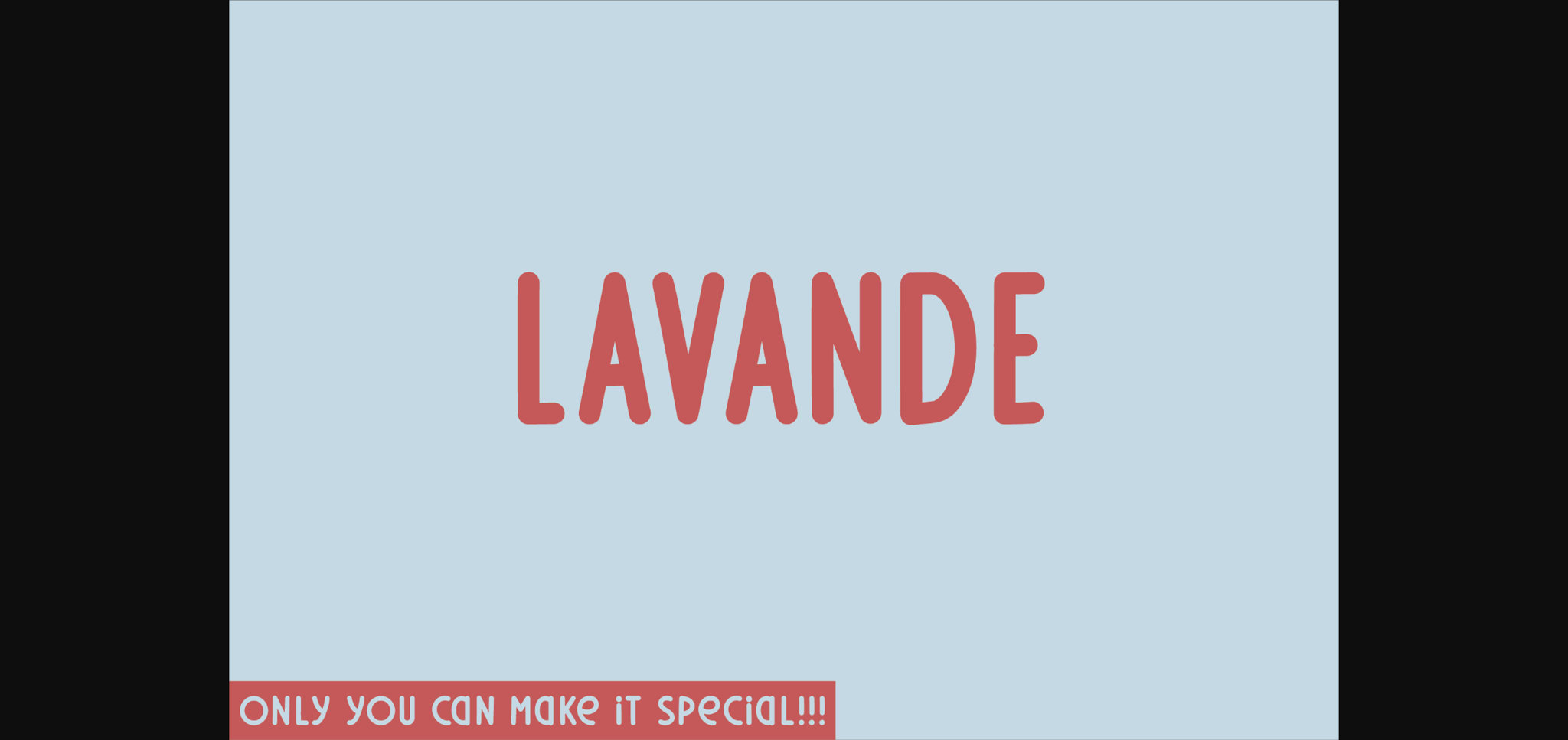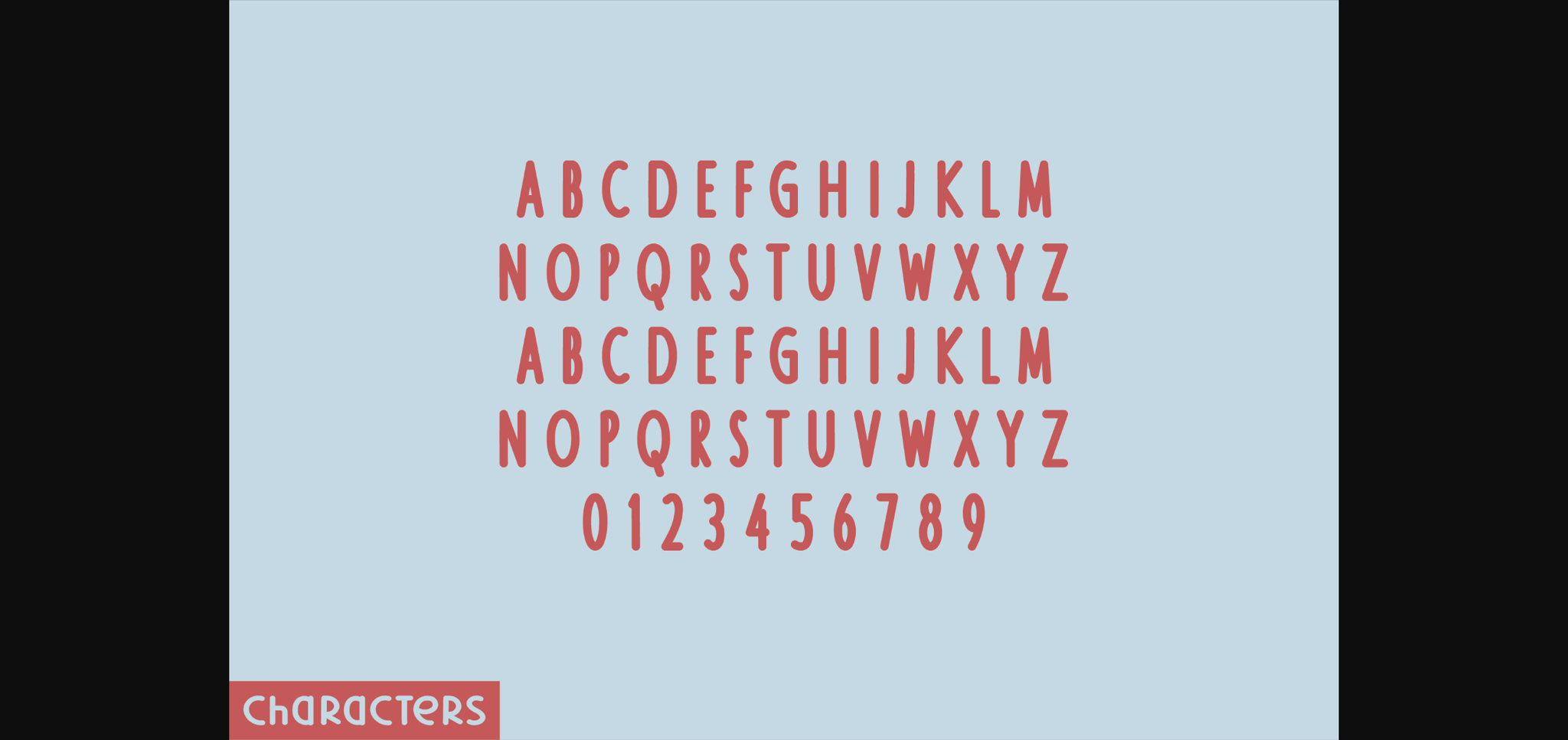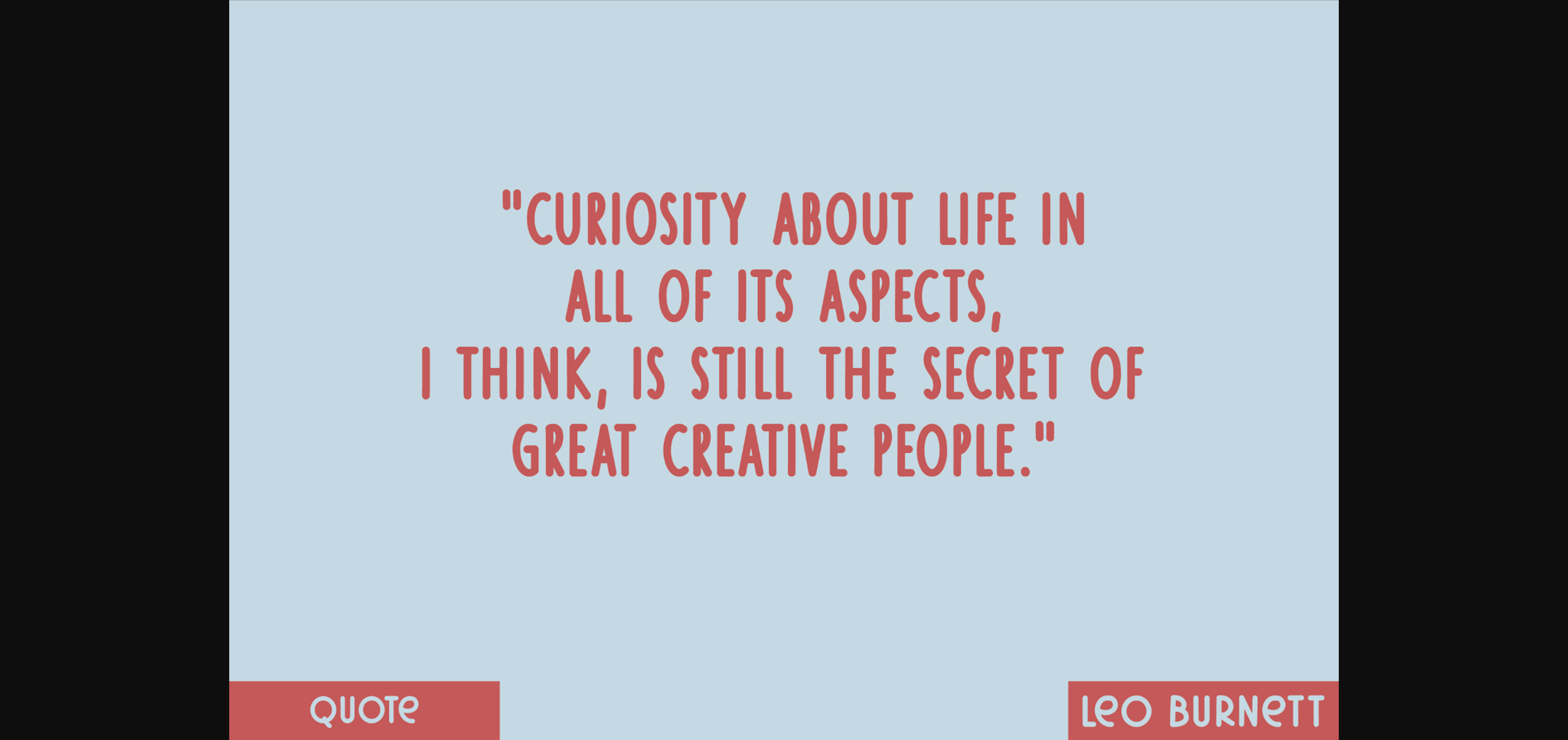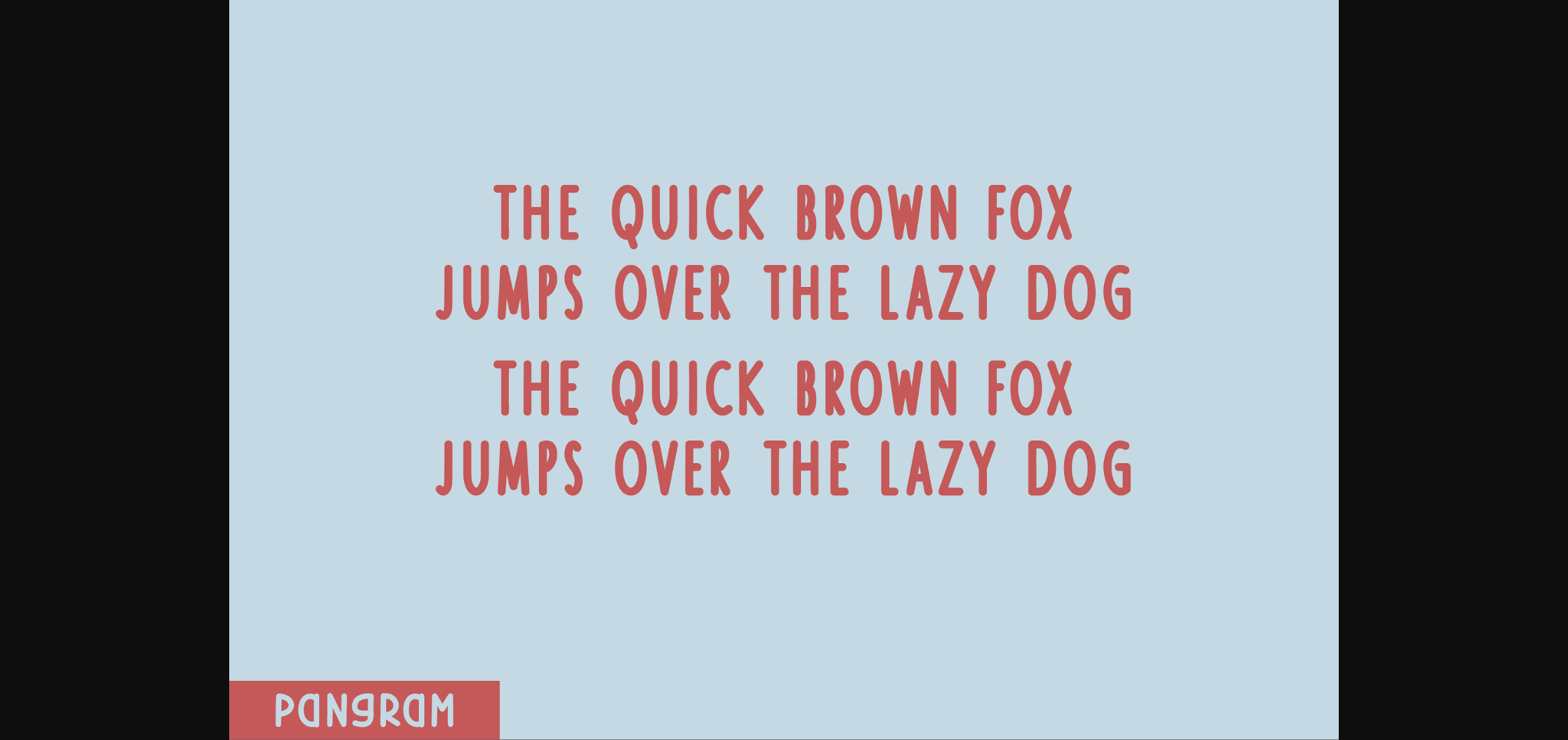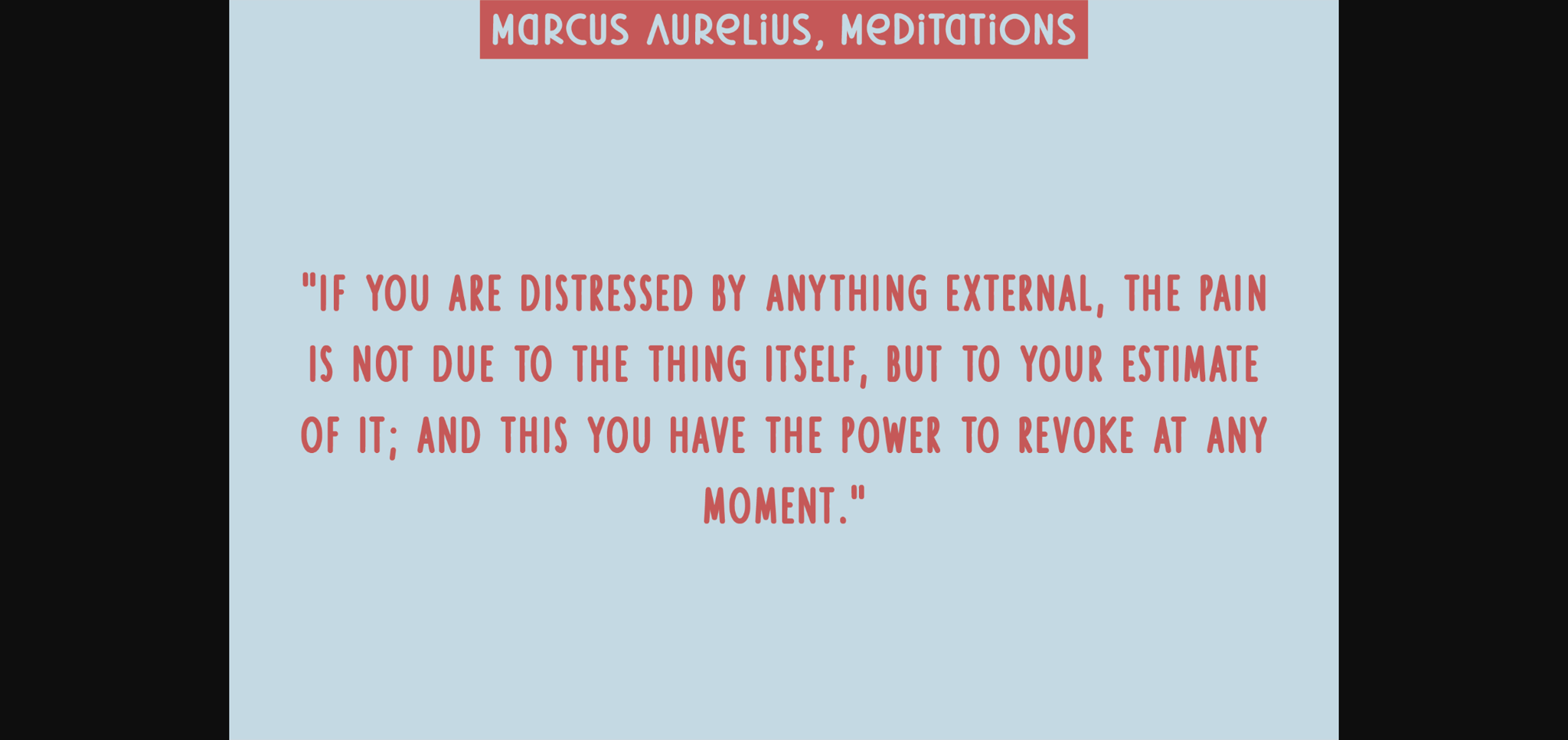
Lavande Font
About Lavande Font
Introducing Lavande, a charming sans serif display font, elegantly crafted with uppercase letters, figures, and functionalities. Each character boasts adorable rounded terminals, effortlessly inducing a sense of whimsical charm and warmth reminiscent of natural handwriting. Perfect for designs that command a touch of nature’s simplicity and a dash of affectionate delight, Lavande is your go-to choice for creating an endearing aesthetic that softly whispers ‘cute’.